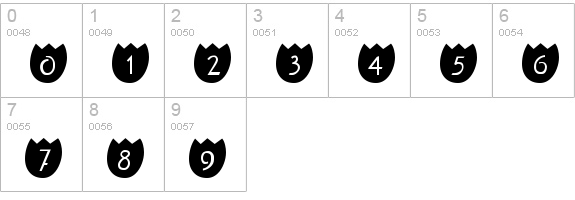
Introducing the mesmerizing 101! TulipZ font, a stunning display typeface that will elevate your designs to new heights! With its intricate floral-inspired letterforms, this font exudes elegance and sophistication. Each character is meticulously crafted to create a beautiful and unique look that will make your projects stand out. And the best part? 101! TulipZ font is available for free download at FontsMarket.com! That's right, you can add this exquisite font to your collection without spending a dime. Whether you're working on invitations, branding, posters, or any other creative project, this font is sure to make a statement. Don't miss out on the opportunity to enhance your designs with the beauty of 101! TulipZ font - get it now for free at FontsMarket.com!